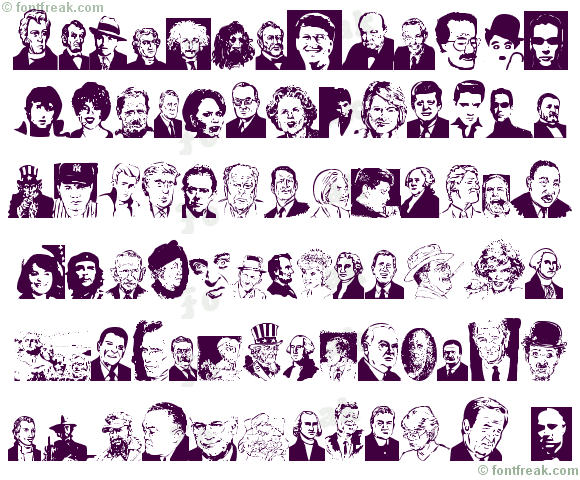
Famous Faces
Famous Faces by Iconian Fonts is a distinct decorative font that brings a unique twist to typography. Released in 2007, this freeware font captures the essence of iconic figures through its visually striking design. The font features a collection of stylized representations of famous personalities, making it a playful yet sophisticated choice for various creative projects. The visual style is characterized by bold, graphic elements that have a high contrast, allowing each figure to stand out prominently. The spacing is thoughtfully arranged to maintain clarity, even when used in larger formats.
Ideal use cases for the Famous Faces font include movie posters, where the recognizable images of celebrities can enhance the visual appeal and immediately grab attention. It also works well for event flyers, particularly those related to themed parties or celebrity tributes, where the whimsical nature of the font can resonate with audiences. Additionally, it can be a fun choice for merchandise aimed at pop culture enthusiasts, such as T-shirts or mugs. Graphic designers and content creators will find this font particularly appealing, as it allows for a creative expression that connects with a wide audience.
What sets the Famous Faces font apart is its blend of artistry and nostalgia. By incorporating well-known figures into the typography, it creates a conversation starter that can engage viewers and evoke emotions tied to those personalities. This font is not just about text; it’s about storytelling through iconic imagery. For those looking to add a touch of charisma to their designs, the Famous Faces font free download offers an excellent opportunity to elevate any project with a unique flair that resonates with both creativity and cultural significance.